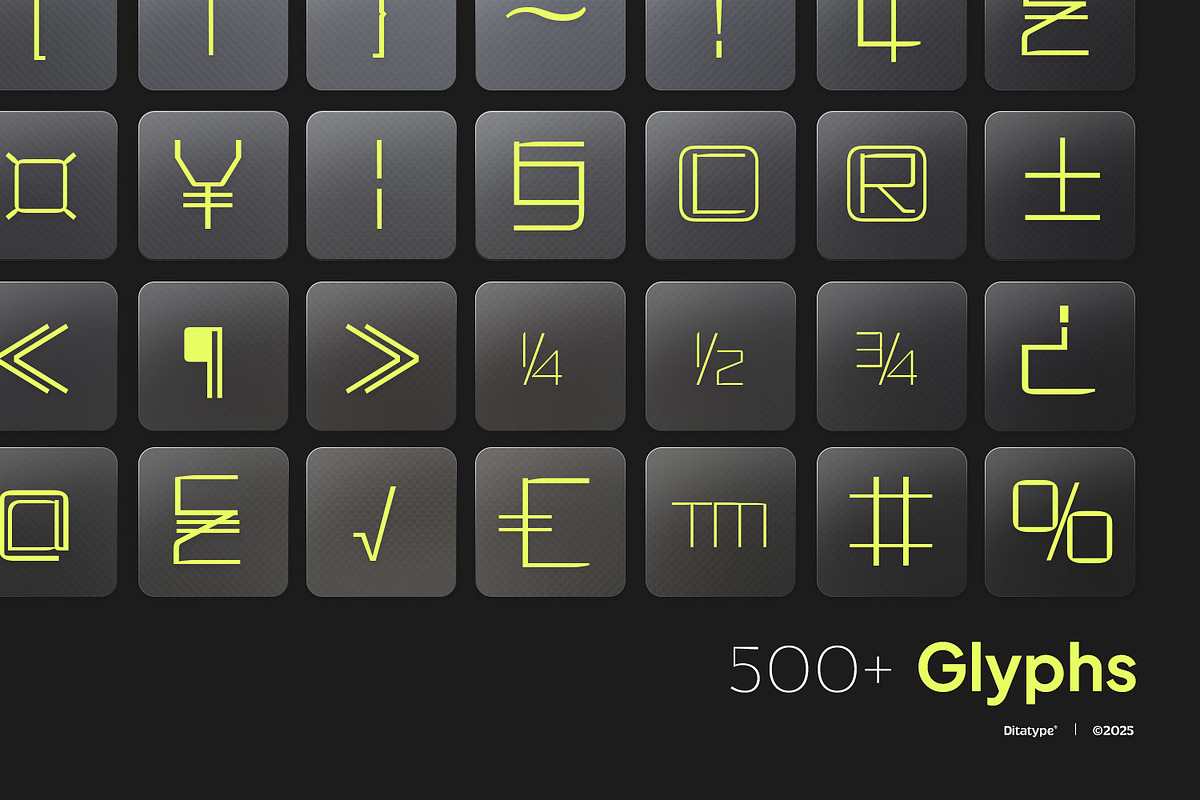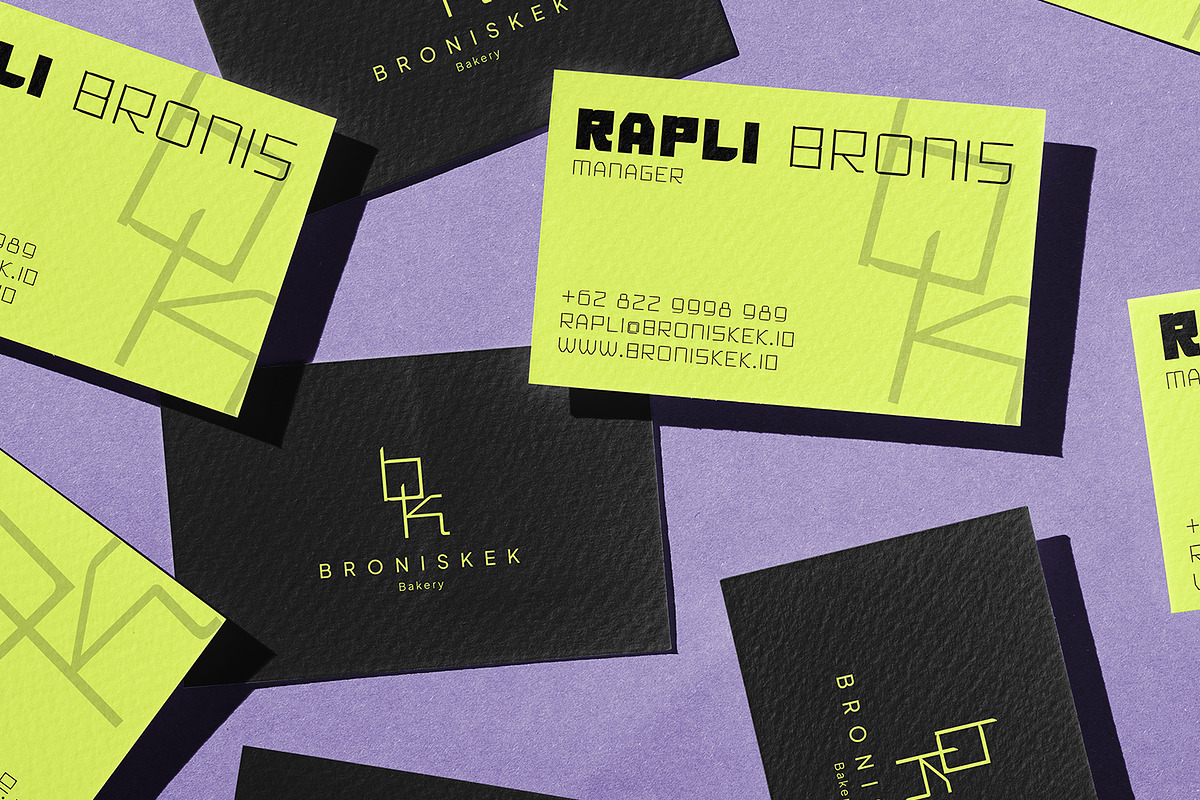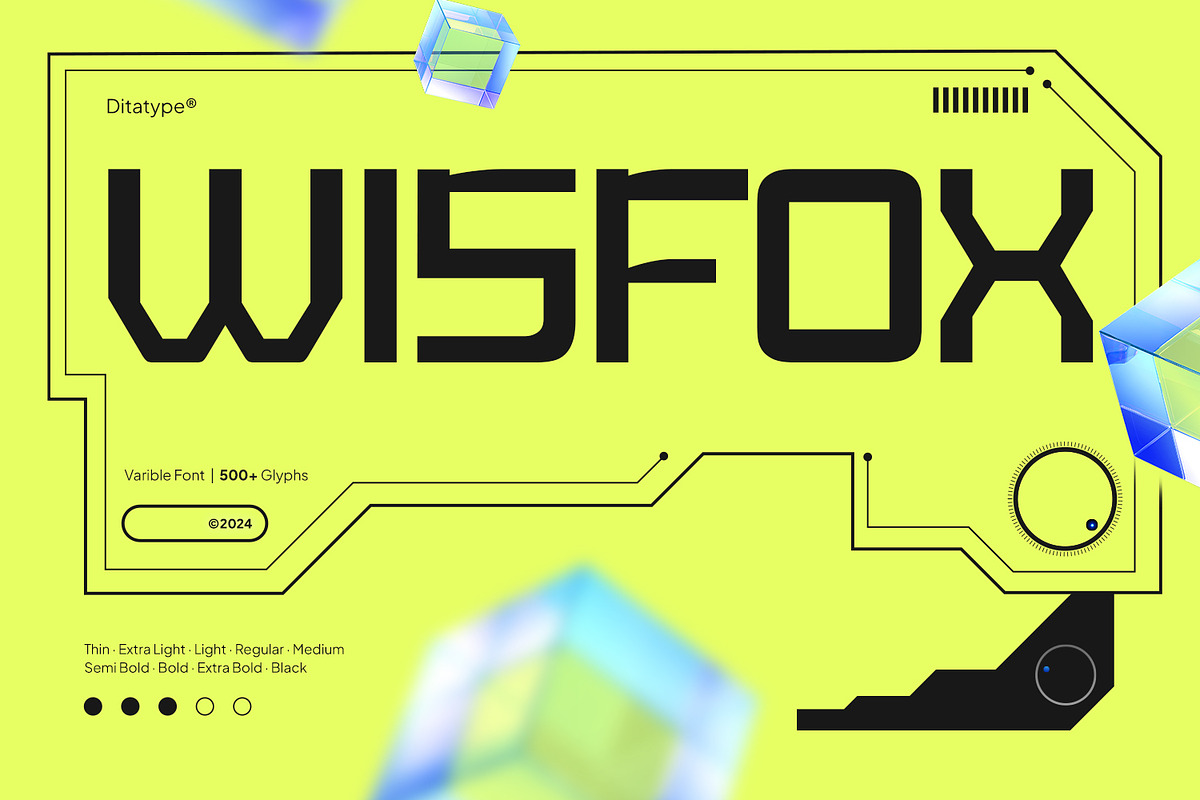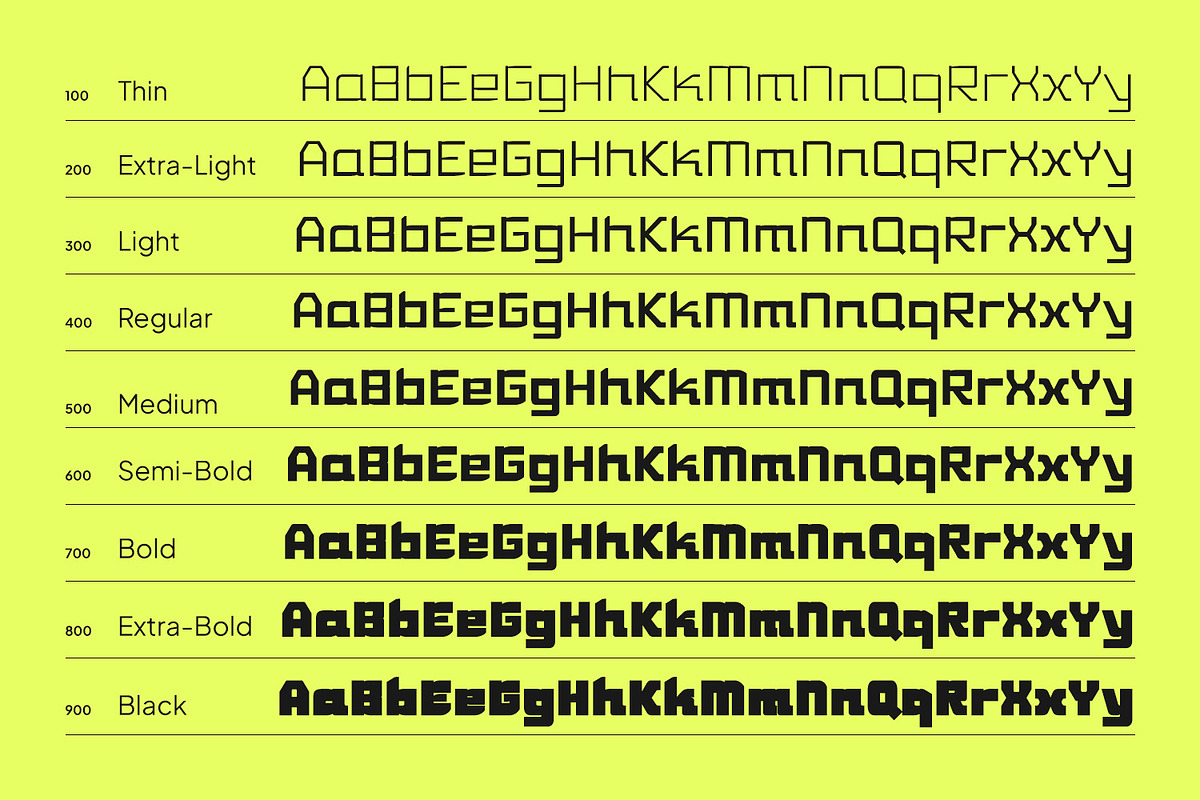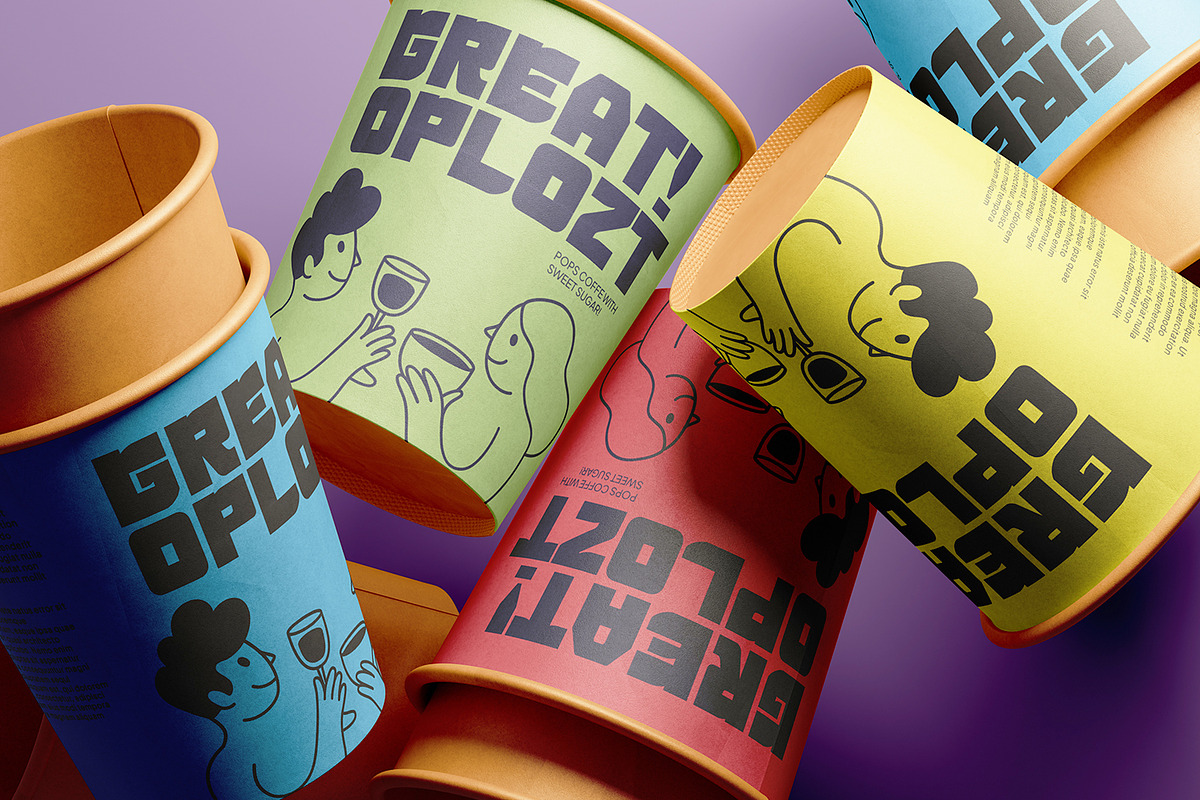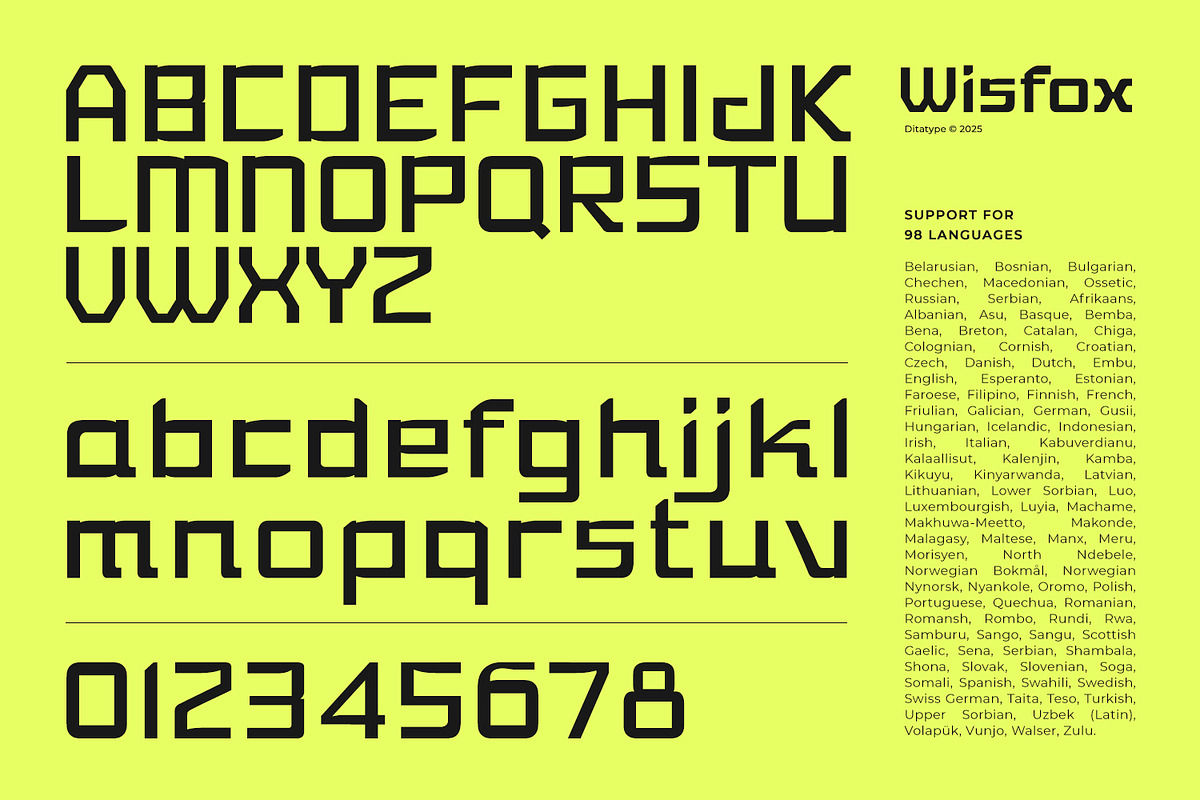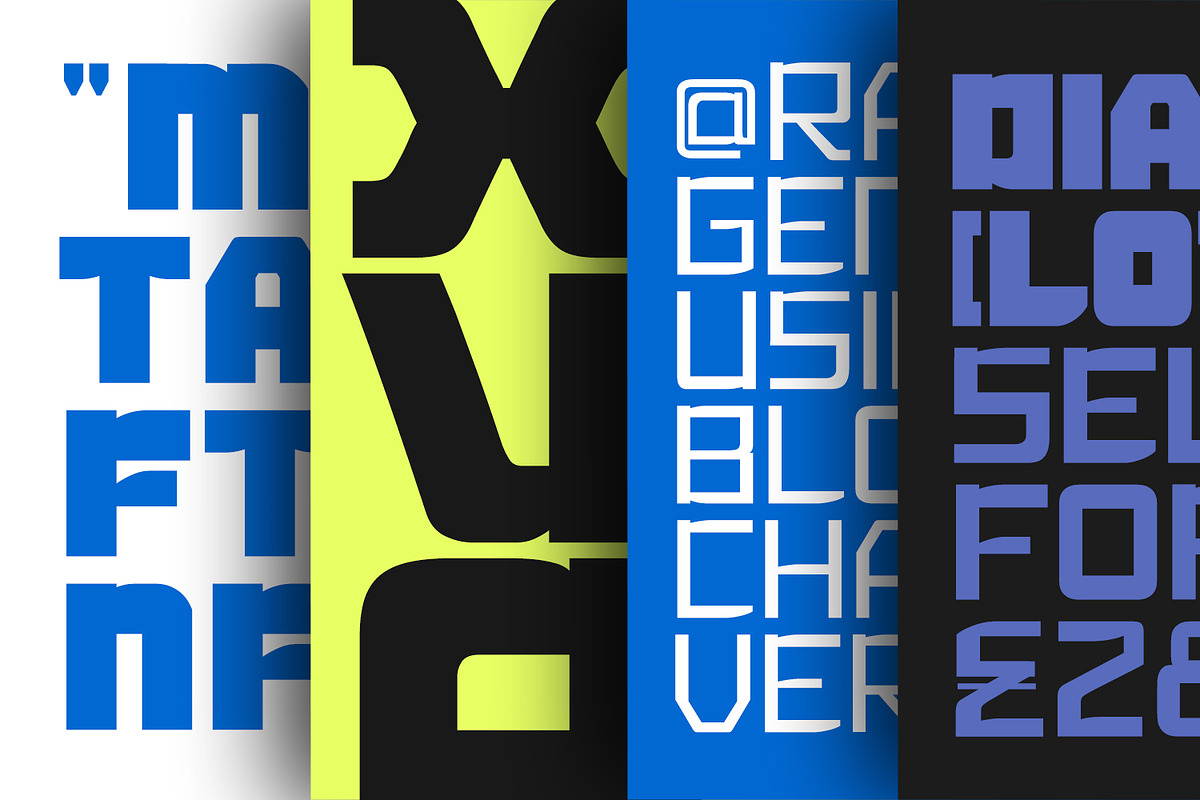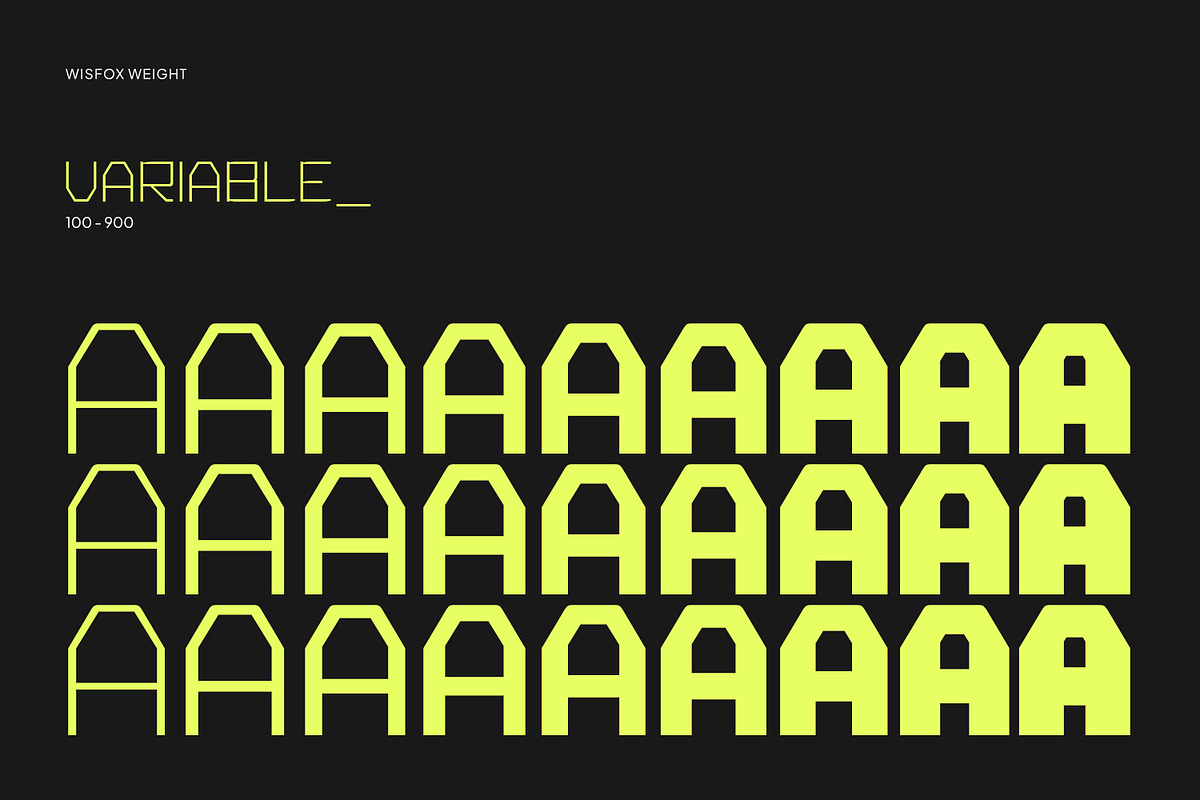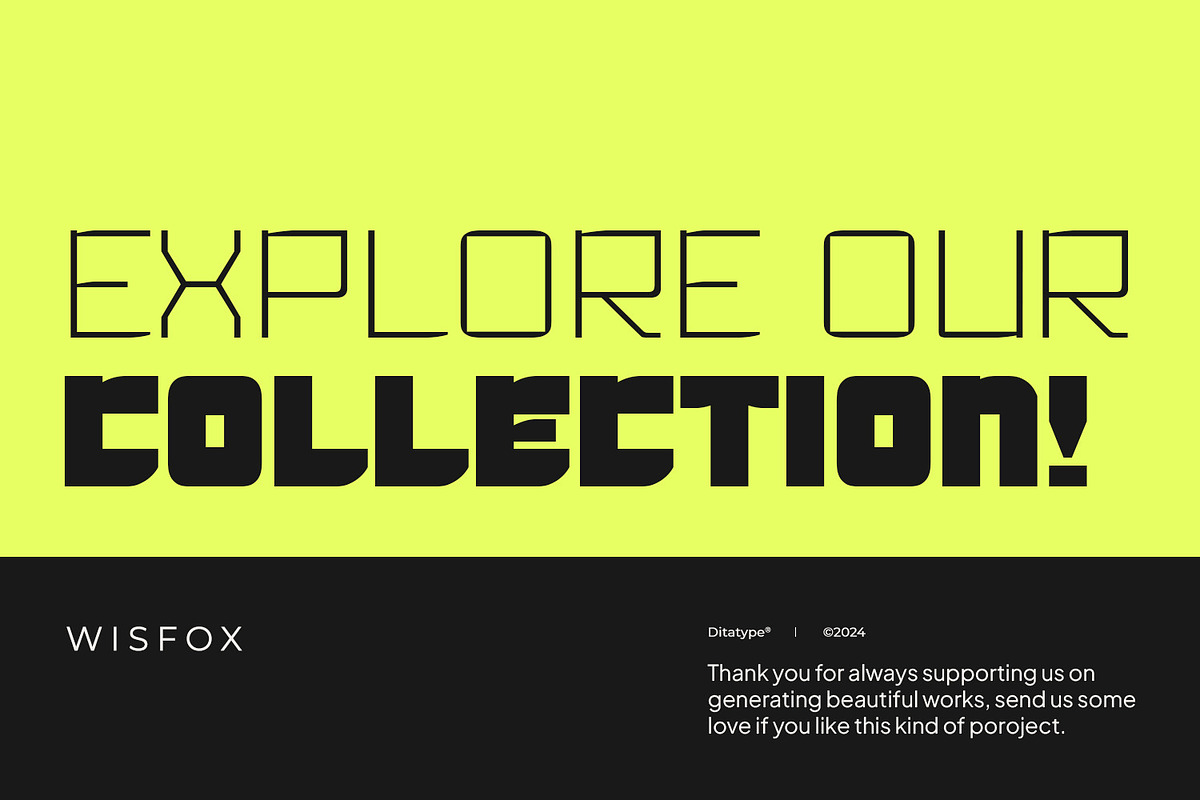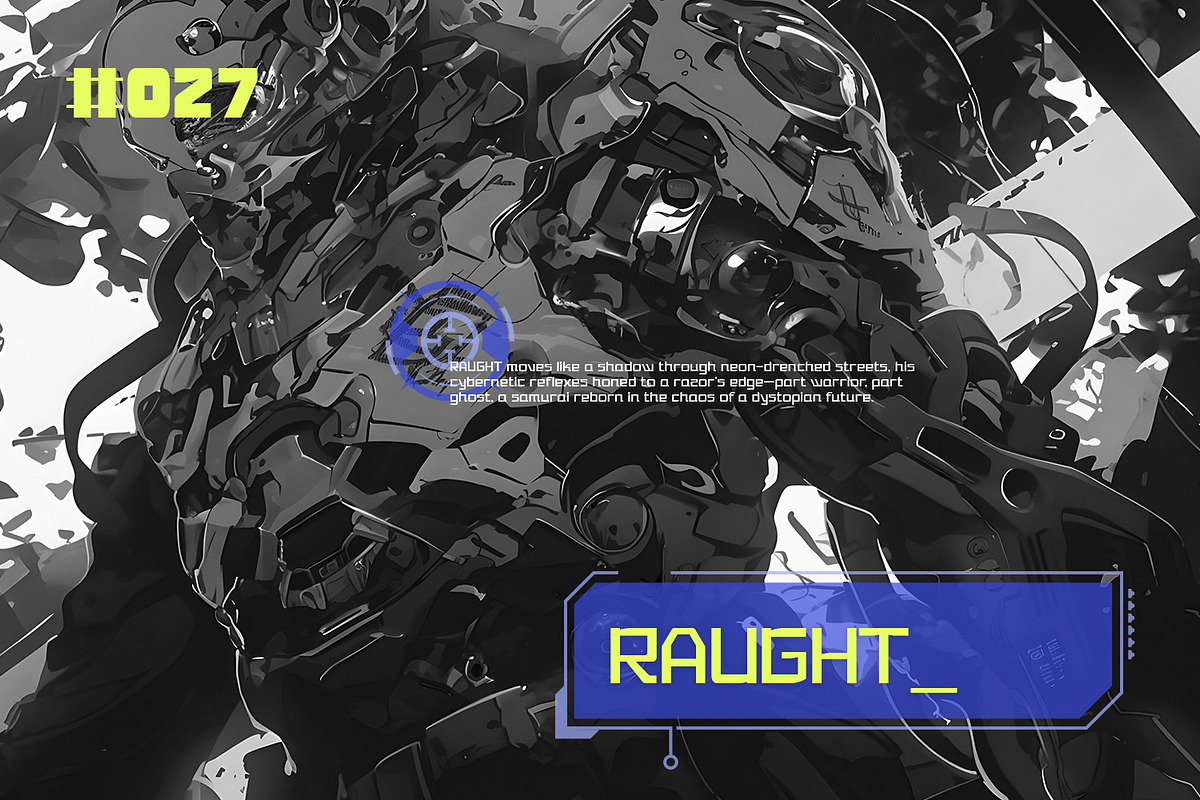
Wisfox
Step into the future with Wisfox, a cutting-edge font family crafted for modern and high-tech designs. Designed with sleek, futuristic aesthetics, Wisfox offers 8 different weight options, ranging from thin to black, providing flexibility for various design needs. Each letterform is meticulously designed with clean lines, sharp edges, and a contemporary feel. The consistent proportions and balanced spacing ensure excellent readability, whether in headlines or body text. Embrace innovation with Wisfox—where modern design meets futuristic precision. In addition, enjoy the features here.
Wisfox fits in logos, technology branding, gaming interfaces, sci-fi posters, UI/UX designs, and many more designs. Find out more ways to use this font by taking a look at the font preview.